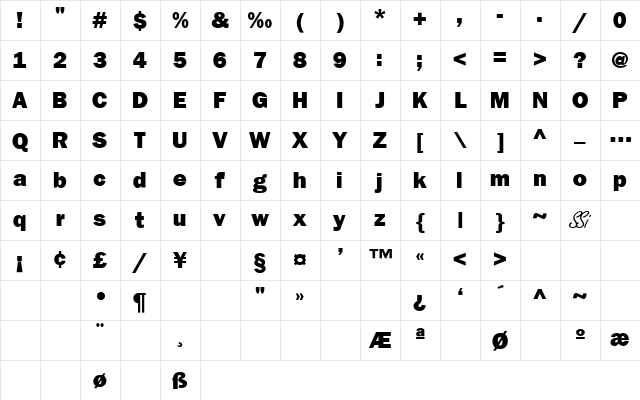
Franklin Gothic Bold SSi Extra Bold
Style: Extra Bold
Franklin Gothic Bold SSi Extra Bold
Complete Franklin Gothic Bold SSi Extra Bold glyph index. Displaying only characters natively supported by Franklin Gothic Bold SSi Extra Bold font.
Design Context for Franklin Gothic Bold SSi
Franklin Gothic Bold SSi takes a clean, functional approach - its unadorned letterforms prioritise legibility and work reliably across screen and print environments. Its bold stroke weight gives it real presence on the page.
Font Pairing: Use Franklin Gothic Bold SSi for headlines alongside a lighter-weight sans or serif for body copy to establish clear visual hierarchy.
Pro Tip: Use Franklin Gothic Bold SSi for UI labels, navigation, and short-form body copy where clean legibility is the priority.